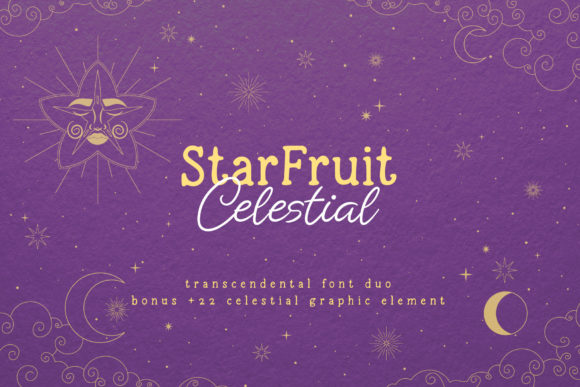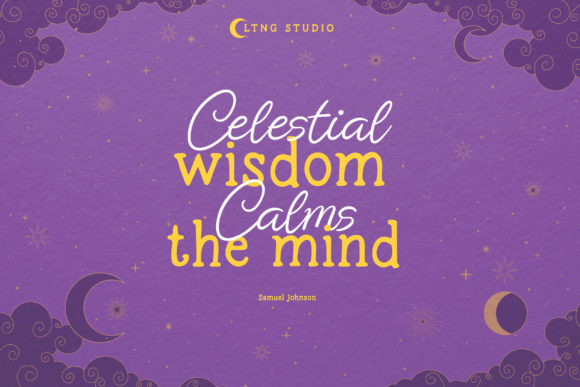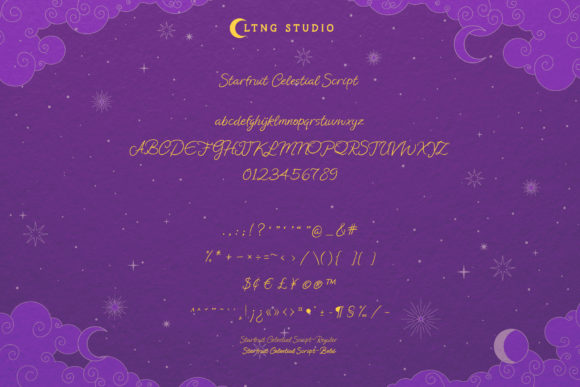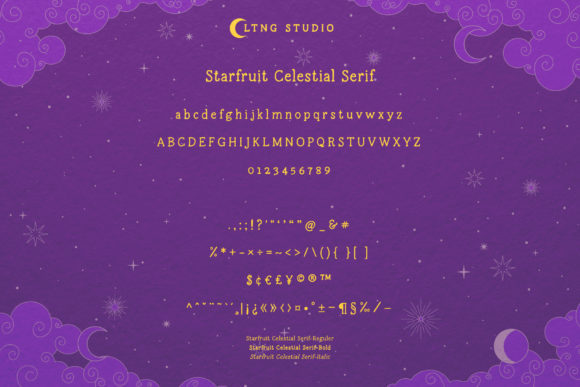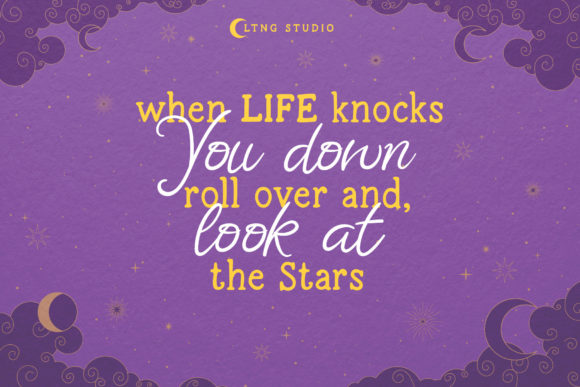
Starfruit Celestial Duo Font
About Starfruit Celestial Duo Font
is a stunning and comprehensive duo font (script and serif), ideal for giving your projects a branded but friendly feel. The two included styles can be combined together perfectly but are also beautiful on their own.